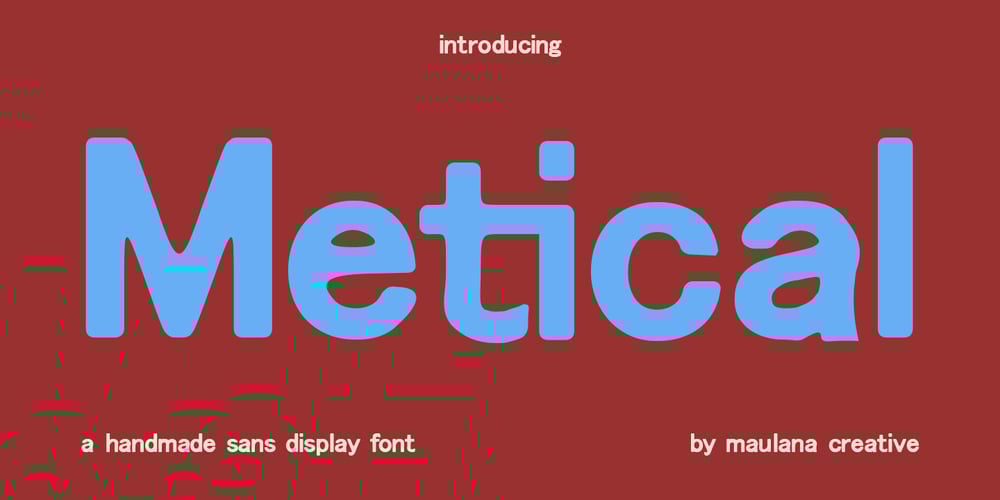
MC Metical Font Family was designed by Gilang Maulana and published by Maulana Creative. MC Metical contains 1 styles and family package options. Metical is a display sans font. With a handmade characters, fun character with a ligatures. To give you an extra creative work. Metical font support multilingual language. This font is good for logo design, Social media, Movie Titles, Books Titles, a short text even a long text letter and good for your secondary text font with sans or serif. Make a stunning work with Metical font.Cheers,Maulana Creative